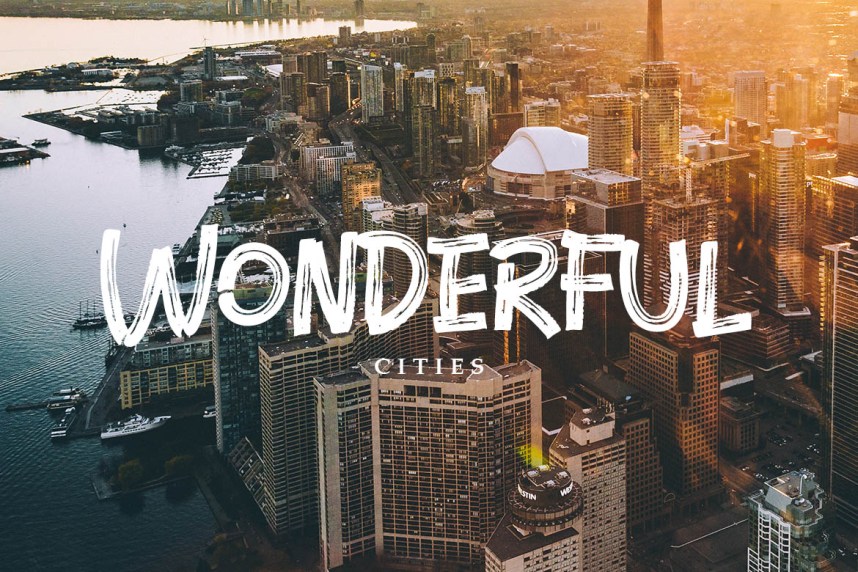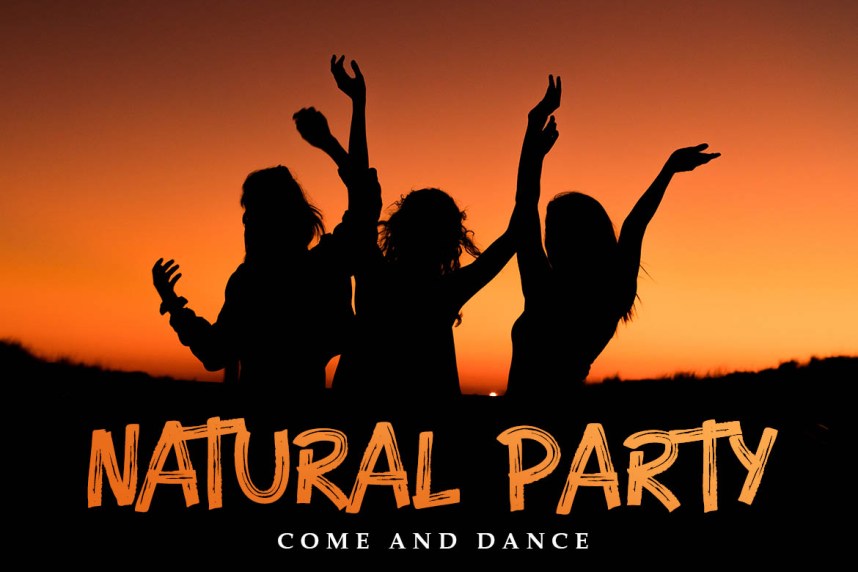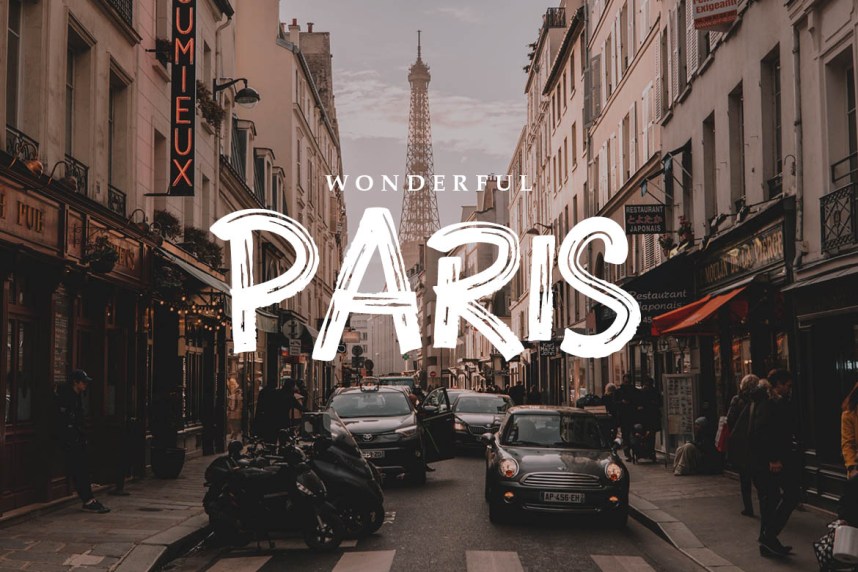
Blink Stones Brush Font
I am happy to present you a new fresh brush font. Introducing Blink Stones Font. This fonts is ideal for branding and decorate your any project. Also with their help, you can create a logo or beautiful frame for your home. Or just use for your small business, book covers, stationery, marketing, blog, magazines and more.